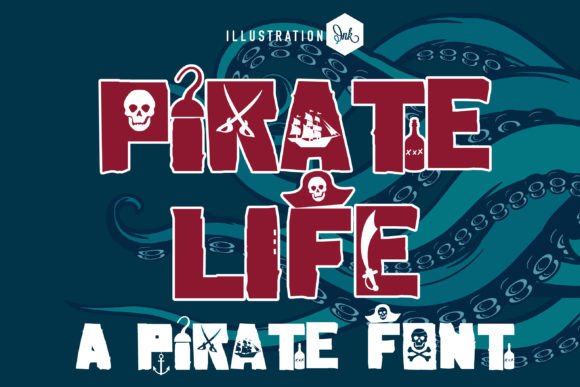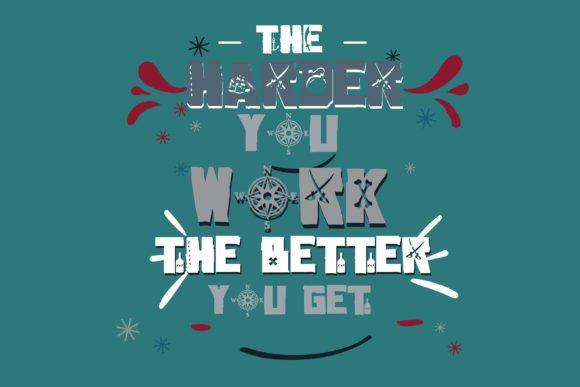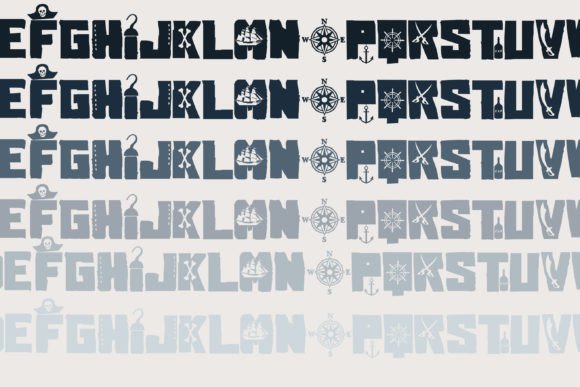
Pirate Life Font: A Swashbuckling Display Font for Creative Projects!
About the Pirate Life Font
The Pirate Life Font offers a perfect balance of form and function for your design needs. Ahoy mateys! Set sail on a typographical adventure with “Pirate Life” font! This font is full of pirate charm, with letters shaped like pirate hats, swords, and treasure chests. It’s perfect for adding a swashbuckling touch to yer designs, whether ye be creatin’ posters, invitations, or treasure maps. Get ready to bring some pirate flair to yer words!
Pirate Life’s playful, swashbuckling style is ideal for headlines, short bursts of text on posters, branding for adventurous businesses (e.g., theme parks, restaurants), and packaging that demands attention. Avoid using it for body text or long paragraphs; its decorative nature compromises readability at smaller sizes.
The font’s bold personality pairs well with clean sans-serif fonts like Open Sans for a balanced contrast, or a more traditional serif like Playfair Display for a sophisticated, vintage feel. A simple script font could add a touch of elegance to a design incorporating Pirate Life, but use sparingly to maintain visual balance.
Pirate Life’s core personality is bold and adventurous, making it unsuitable for projects requiring subtlety or sophistication. It’s best suited to brands projecting fun, excitement, and a rebellious spirit.
Pirate Life Font Usage Examples
Pirate Life Font Example